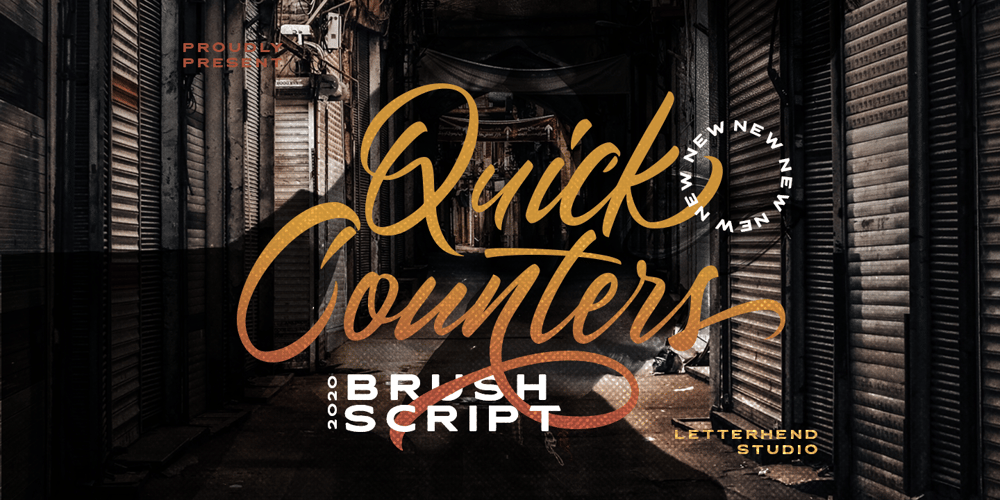
Quick Counters Font Family was designed by Hendry Juanda and published by Letterhend. Quick Counters contains 1 styles and family package options. Introducing, Quick Counters – A very cool brush script based on manual hand writting. This type of font perfectly made to be applied especially in logo, and the other various formal forms such as invitations, labels, logos, magazines, books, greeting / wedding cards, packaging, fashion, make up, stationery, novels, labels or any type of advertising purpose.Features : uppercase & lowercase numbers and punctuation multilingual swash and ligature alternates PUA encoded We highly recommend using a program that supports OpenType features and Glyphs panels like many of Adobe apps and Corel Draw, so you can see and access all Glyph variations. How to access opentype feature : letterhend.com/tutorials/using-opentype-feature-in-any-software/Email us to letterhend@gmail.com if you need something! Happy Designing!